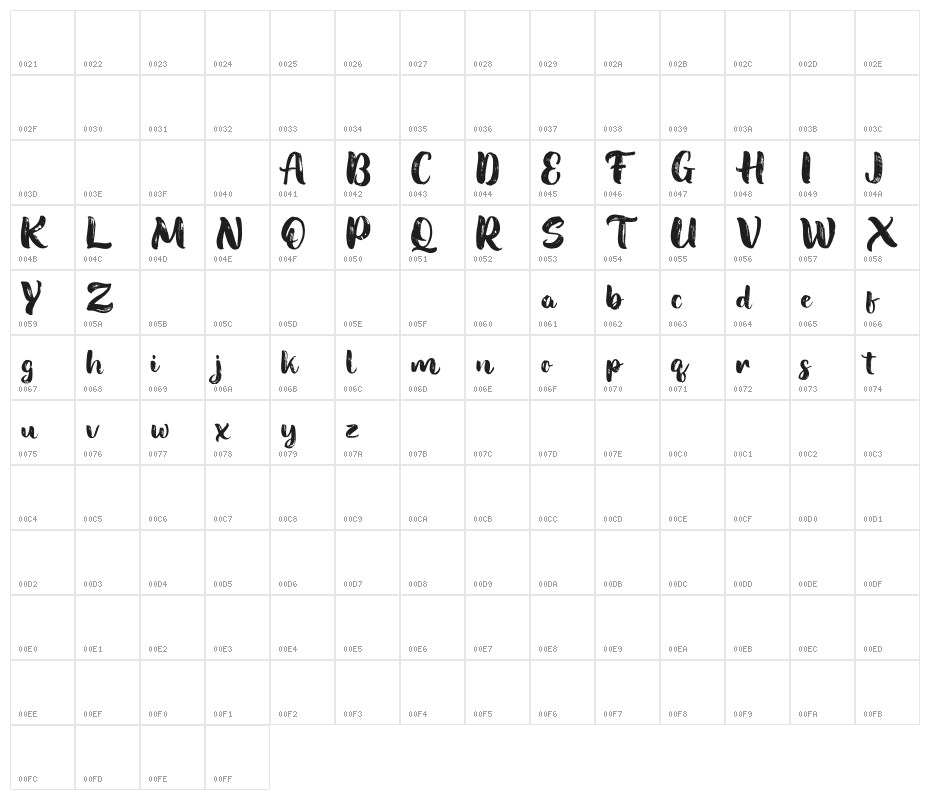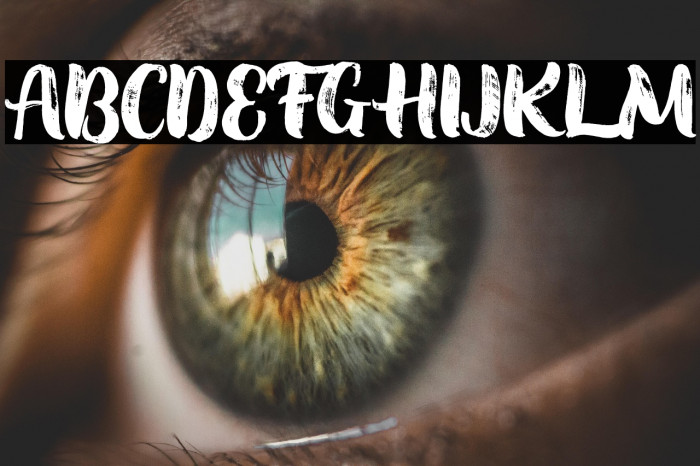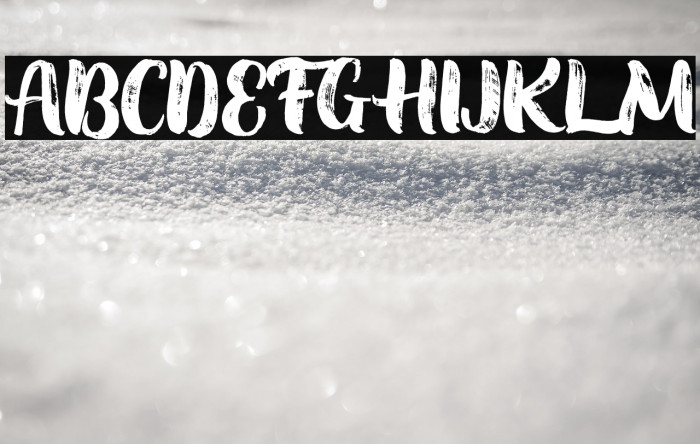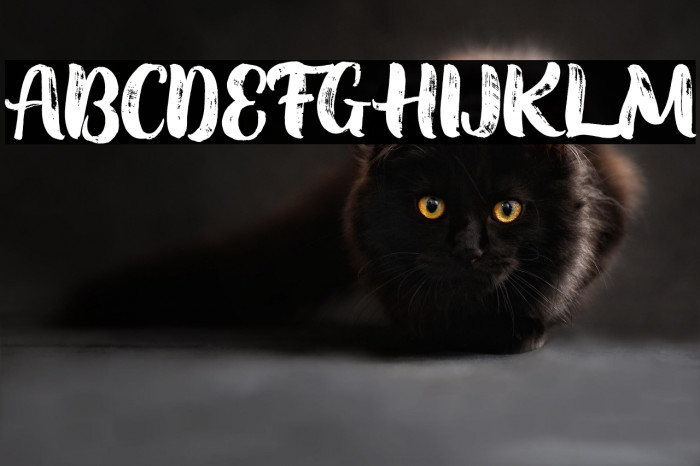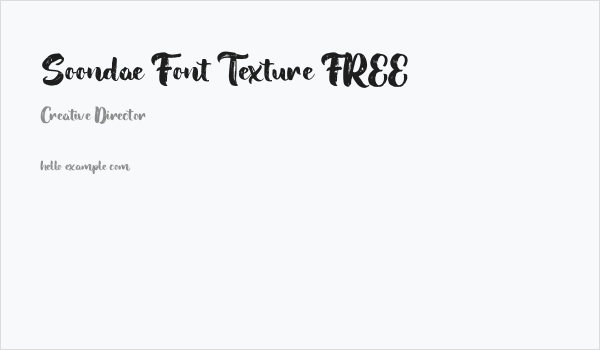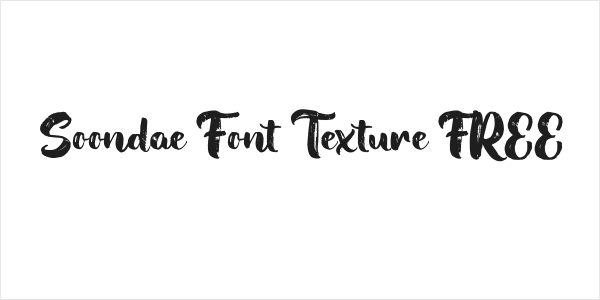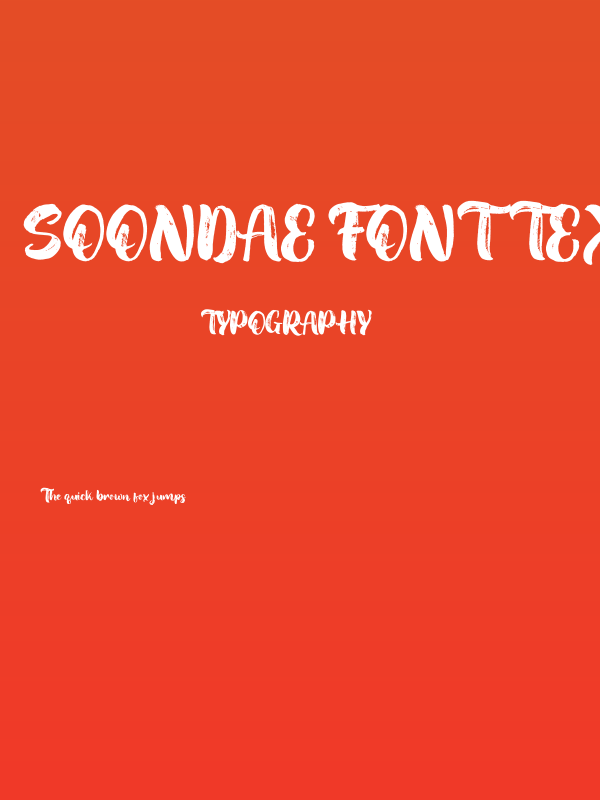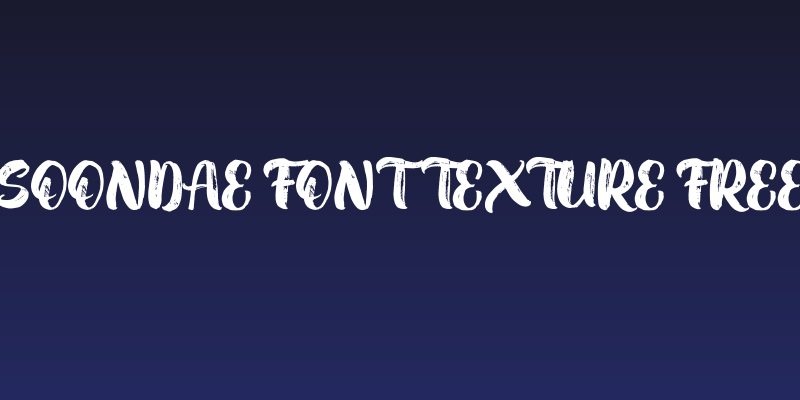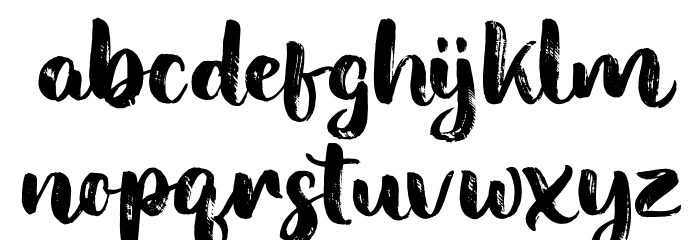
Soondae Font Texture FREE Font
Soondae Font Texture FREE Description
This font features a bold, textured brush style that exudes a sense of energy and dynamism. The strokes are thick and uneven, giving it a hand-painted appearance that is both artistic and expressive. Each letter is crafted with a unique texture, adding depth and character to the overall design. The uppercase and lowercase letters maintain a consistent style, with a playful yet sophisticated flair. This font is ideal for projects that require a personal touch, such as invitations, posters, and branding materials. Its distinctive look makes it stand out, capturing attention with its bold and creative expression.
| Proposed Projects | Ideal for invitations, posters, branding materials, and any project needing a personal, artistic touch. |